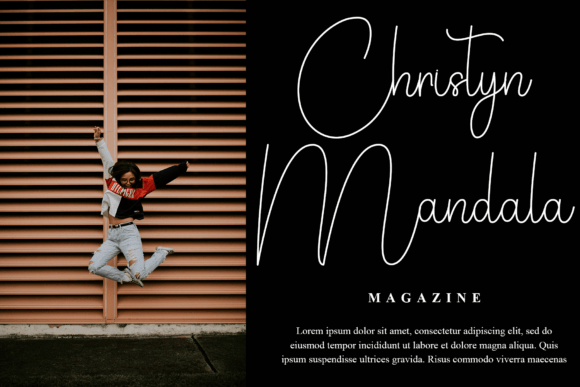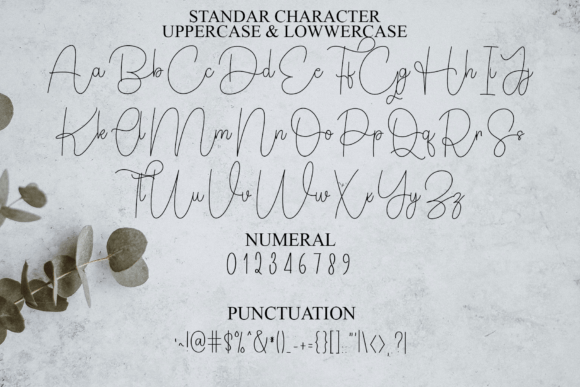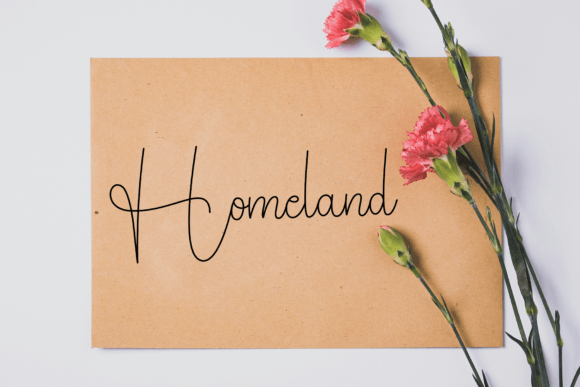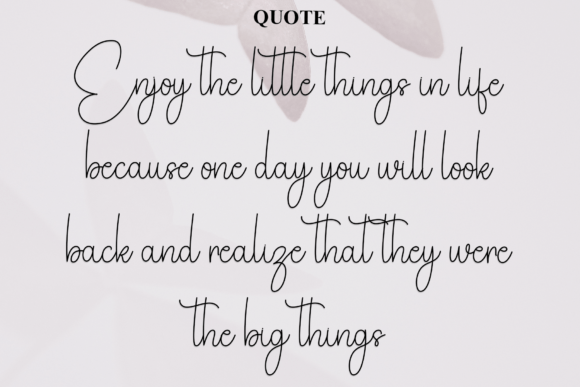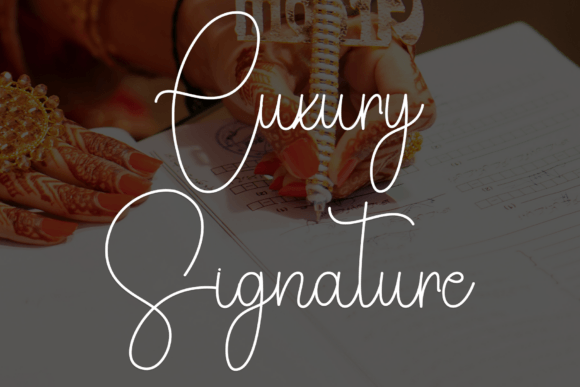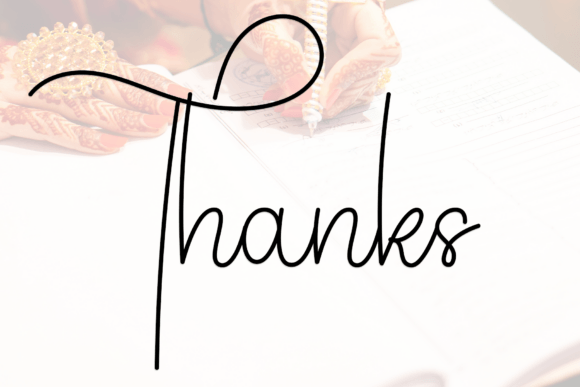
Fantastic Signature Font: Elevate Your Designs with Elegance
In the world of design, typography plays a crucial role in conveying messages, expressing creativity, and capturing attention. A well-crafted font can make all the difference in transforming a simple design into a stunning masterpiece. This is where the Fantastic Signature Font comes into play – a handcrafted font designed to meet your business needs and elevate your designs with its elegant touch.
The Beauty of Handcrafted Typography
Fantastic Signature Font is a beautiful, handcrafted font that boasts smooth touches and exquisite strokes, giving your work a natural and sophisticated feel. The font’s unique design ensures that your designs stand out from the crowd, making it perfect for various applications, including banners, YouTube thumbnails, logo designs, wedding invitation cards, clothing mockups, t-shirts, and more.
Key Features of Fantastic Signature Font
• Unique and Elegant Design: The font’s handcrafted design ensures that your designs exude elegance and sophistication.
• Smooth Touch and Beautiful Strokes: The font’s smooth touch and beautiful strokes give your work a natural feel, making it perfect for various design applications.
• Versatile: Fantastic Signature Font is suitable for a wide range of design projects, including banners, YouTube thumbnails, logo designs, wedding invitation cards, clothing mockups, t-shirts, and more.
Use Cases for Fantastic Signature Font
The Fantastic Signature Font is an incredibly versatile font that can be used in various design projects, including:
• Banners: Create stunning banners that grab attention with the font’s elegant design.
• YouTube Thumbnails: Make your YouTube thumbnails stand out with the font’s unique and eye-catching design.
• Logo Designs: Create professional and elegant logos that reflect your brand’s identity.
• Wedding Invitation Cards: Add a touch of elegance to your wedding invitation cards with the font’s beautiful design.
• Clothing Mockups: Create stunning clothing mockups that showcase your designs in a unique and captivating way.
• T-Shirts: Design eye-catching t-shirts that stand out with the font’s elegant and sophisticated design.
Why Choose Fantastic Signature Font?
In today’s competitive design landscape, it’s essential to have a font that sets you apart from the crowd. Here are some reasons why you should choose Fantastic Signature Font:
• High-Quality Design: The font is designed with high-quality and attention to detail, ensuring that your designs look professional and elegant.
In conclusion, the Fantastic Signature Font is an excellent choice for designers and businesses looking for a beautiful, handcrafted font that meets their design needs. With its elegant design, smooth touch, and beautiful strokes, this font is perfect for various design applications. Whether you’re creating banners, YouTube thumbnails, logo designs, wedding invitation cards, clothing mockups, t-shirts, or more, Fantastic Signature Font is the perfect solution to elevate your designs with elegance and sophistication.